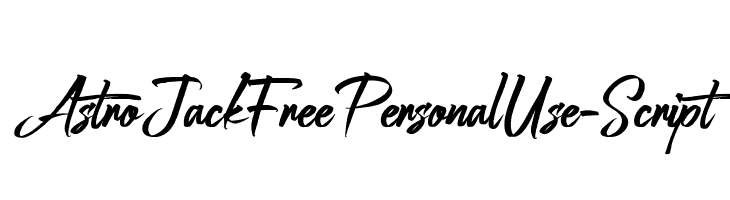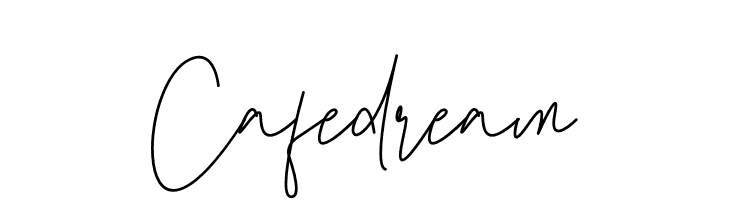
( Fonts by Timur Type )
Casual handwritten script font.
( Fonts by Letterhanna Type Foundry )
Playful handwritten font.
( Fonts by ManekaDesign )
Casual handwritten script font.
( Fonts by RaisProject )
Expressive handwritten script font.
( Fonts by Typebae Foundry )
Elegant handwritten script font.
( Fonts by Hanna Bie )
Playful, bold, hand-drawn font.
( Fonts by Ikrar Bey Khubaib )
Bold cursive script with a handwritten style.
( Fonts by Letterena Studios )
Casual handwritten script font.
( Fonts by Sahara Varisia )
Casual handwritten font with rounded edges.
( Fonts by RantautypeStudio )
Casual handwritten font with a playful style.
( Fonts by Letterena Studios )
Playful handwritten script font.
( Fonts by Maulana Creative )
Playful handwritten font with a whimsical style.
( Fonts by Md Shohail Bhuian )
Playful and rounded sans-serif font.
( www.wartoft.nu/ )
Playful handwritten font with a casual style.
( Fonts by Zuzulgo Studio )
Playful, bold handwritten font.
( Fonts by Scratchones )
Expressive handwritten script font.
( Fonts by Winarko )
Bold, playful handwritten font.
( Fonts by Balpirick Studio )
Playful handwritten font with a casual style.
( Fonts by Staircase Studio )
Handwritten cursive script font.
( Fonts by Staircase Studio )
Elegant cursive script with a handwritten style.
( Fonts by Inermedia Studio )
Playful handwritten font.
( Fonts by Nabila )
Elegant handwritten script font.
( Fonts by Letterena Studios )
Casual handwritten font with a playful style.
( Fonts by Gado Gado )
Elegant cursive script with a handwritten style.
( Fonts by StringLabs )
Elegant handwritten script font.
( Fonts by StringLabs )
Elegant handwritten script font.
( Fonts by Hardiboy Design )
Playful handwritten script font.
( Fonts by Tate Chaffin )
Playful handwritten font with a casual style.
( Fonts by Graphix Line Studio )
Elegant cursive script font.